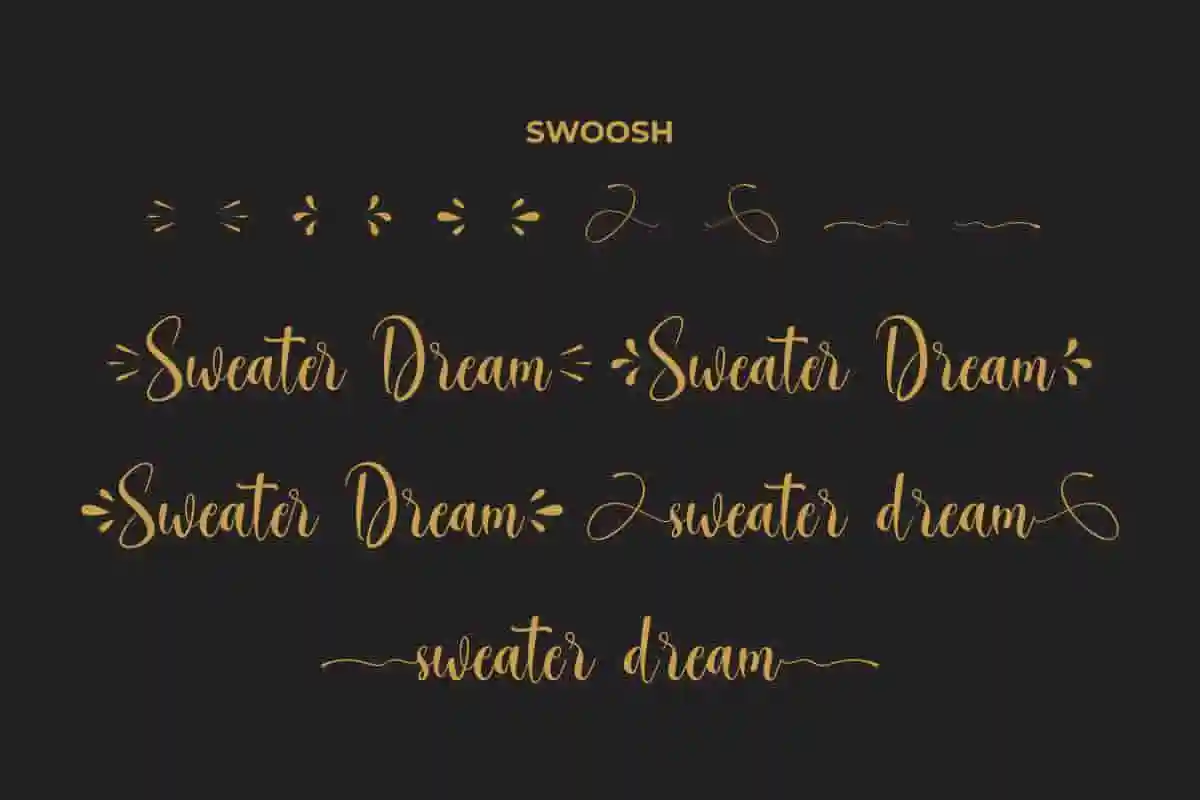
Sweater Dream Font is an elegant script font with calligraphic style with special ornaments. This font is made from beautiful little brush lines that convey luxury that will delight your eyes to produce glamour designs, such as business card, custom design, invitation, label, magazine catalog, menu, poster, product packaging, quotes, stationery, website, and more!
Sweater Dream Font includes full set of Uppercase and Lowercase Basic Characters, Numerals, and Punctuation. It also contain Ligature and Swoosh characters that will add perfection and making it suitable for many industries, such as café, cosmetic, fashion, florist, furniture, interior design, jewelry and accessories, perfume brand, skincare, spa and salon, wedding or event organizer, etc.
If you’re looking for a font that blends warmth, style, and elegance, the Sweater Dream Script Font is your perfect match. Designed with smooth, flowing strokes and a naturally handwritten aesthetic, this script typeface brings a touch of personality to every design.
Crafted with precision and creativity, this font offers high readability while maintaining its stylish script feel. Each letter flows beautifully into the next, making your text look professional, yet personal. With a versatile range of alternates and ligatures, you can customize your typography effortlessly to match your project’s unique style.